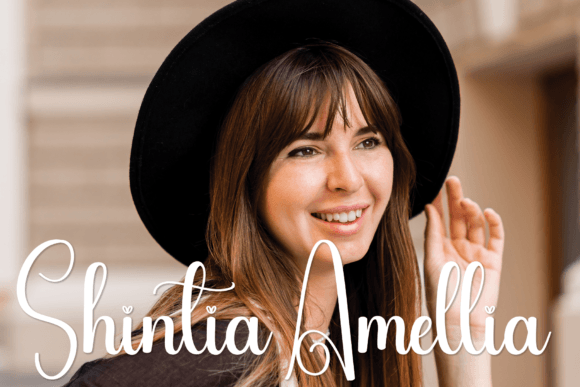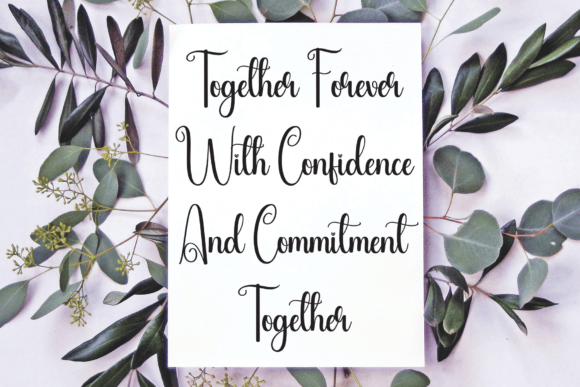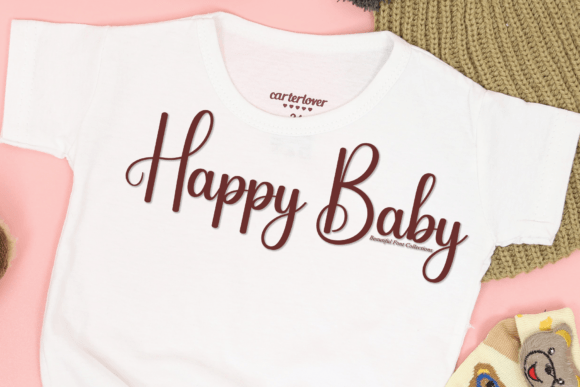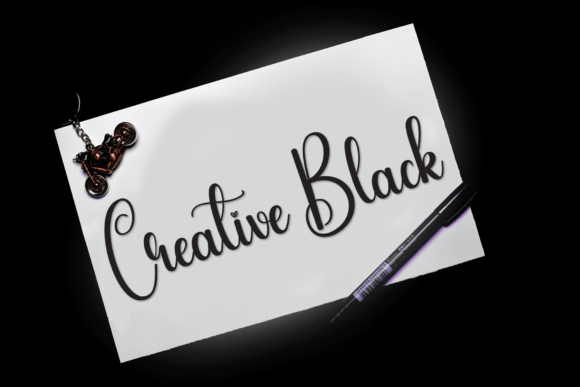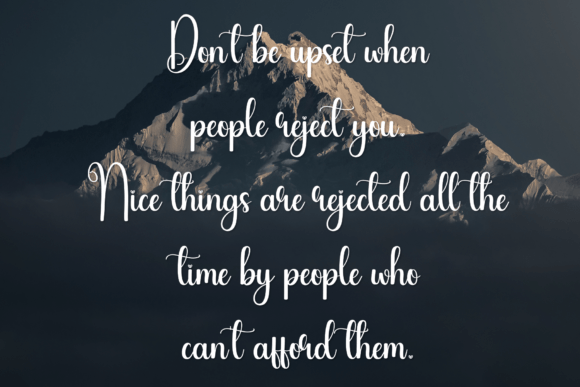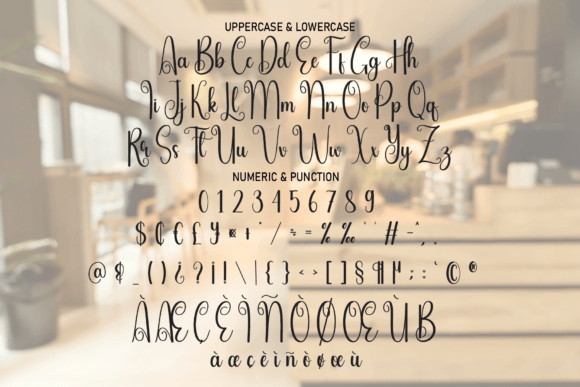
Cafe Friday Font: The Sweet and Friendly Handwritten Font for Your Design Needs
Are you a designer or crafter looking for a font that can add a personal touch to your projects? Look no further than Cafe Friday, a sweet and friendly handwritten font that’s perfect for a wide range of designs. With its natural and unique style, Cafe Friday is incredibly versatile and can be used for everything from branding and packaging to scrapbooking and DIY crafts.
The Characteristics of Cafe Friday Font
Cafe Friday is a handwritten font that’s designed to look like it was written with love and care. Its natural and unique style makes it stand out from more traditional fonts, and its friendly tone is sure to make your designs feel approachable and inviting. Whether you’re looking to create a whimsical and playful design or a more elegant and sophisticated one, Cafe Friday is the perfect choice.
One of the best things about Cafe Friday is its versatility. This font can be used for a wide range of designs, from:
- Branding and packaging: Use Cafe Friday to create custom logos, labels, and packaging that will make your products stand out on store shelves.
- Scrapbooking and journaling: Add a personal touch to your scrapbook pages and journals with Cafe Friday’s sweet and friendly letters.
- DIY crafts: Use Cafe Friday to create custom signs, banners, and other DIY crafts that will add a touch of personality to your home or office.
- Digital designs: Cafe Friday can be used for digital designs like social media graphics, blog posts, and email newsletters.
The Benefits of Using Cafe Friday Font
So why choose Cafe Friday for your design needs? Here are just a few benefits of using this sweet and friendly font:
- Unique and eye-catching: Cafe Friday’s natural and unique style makes it a standout from more traditional fonts.
- Versatile: This font can be used for a wide range of designs, from branding and packaging to scrapbooking and DIY crafts.
- Easy to read: Despite its handwritten style, Cafe Friday is incredibly easy to read, making it perfect for designs that need to communicate a message.
- Customizable: Cafe Friday can be customized to fit your design needs, from adjusting the size and color to adding your own flair with graphics and images.
Tips for Using Cafe Friday Font
Here are a few tips for getting the most out of Cafe Friday:
- Experiment with different sizes and colors: Don’t be afraid to try out different sizes and colors of Cafe Friday to see what works best for your design.
- Add graphics and images: Cafe Friday pairs perfectly with graphics and images, so don’t be afraid to add your own flair to your designs.
- Mix and match with other fonts: Cafe Friday can be paired with other fonts to create a unique and eye-catching design.
- Use it consistently: To create a cohesive brand or design, use Cafe Friday consistently across all of your materials.
Cafe Friday is a sweet and friendly handwritten font that’s perfect for designers and crafters looking to add a personal touch to their projects. With its natural and unique style, Cafe Friday is incredibly versatile and can be used for a wide range of designs. Whether you’re looking to create a whimsical and playful design or a more elegant and sophisticated one, Cafe Friday is the perfect choice. So why wait? Give Cafe Friday a try today and see the difference it can make in your designs!